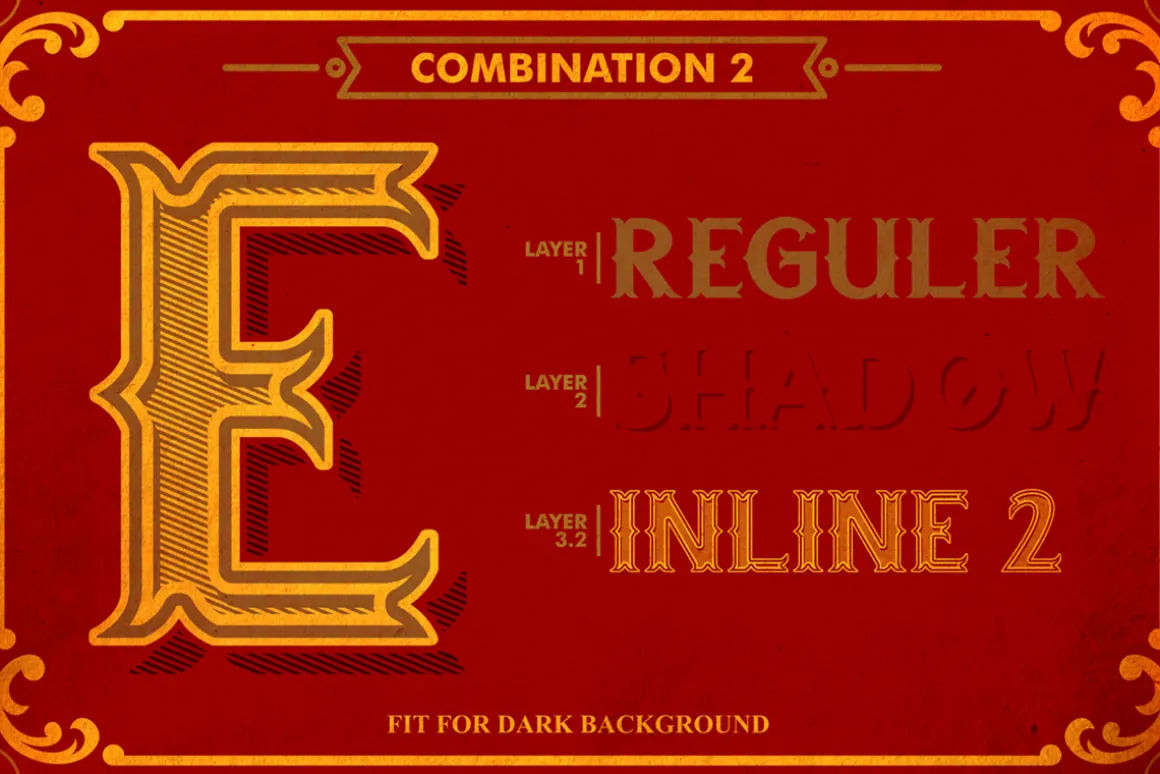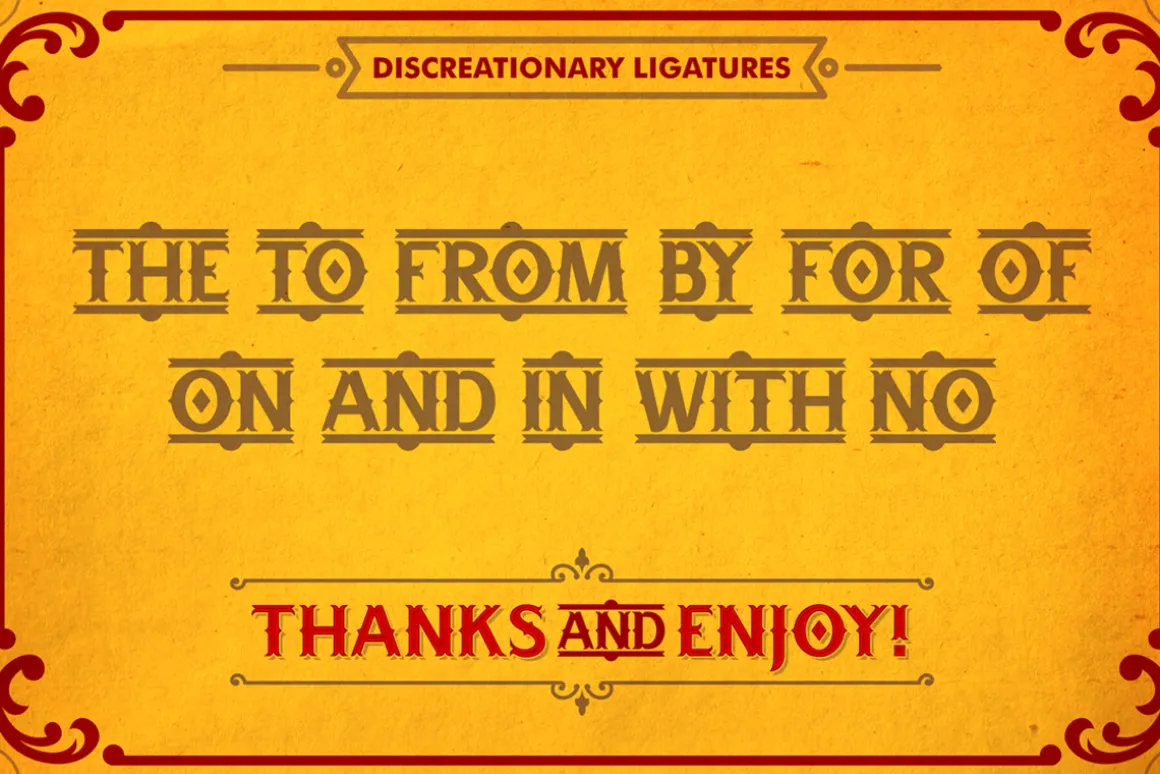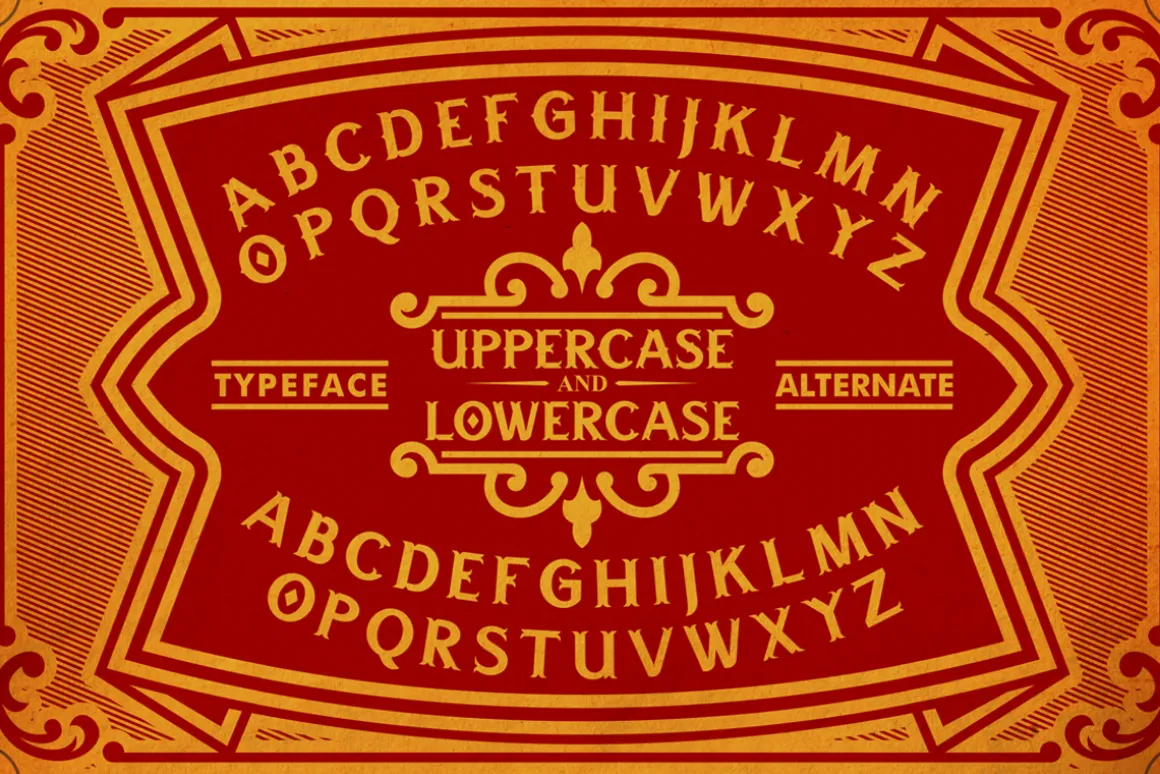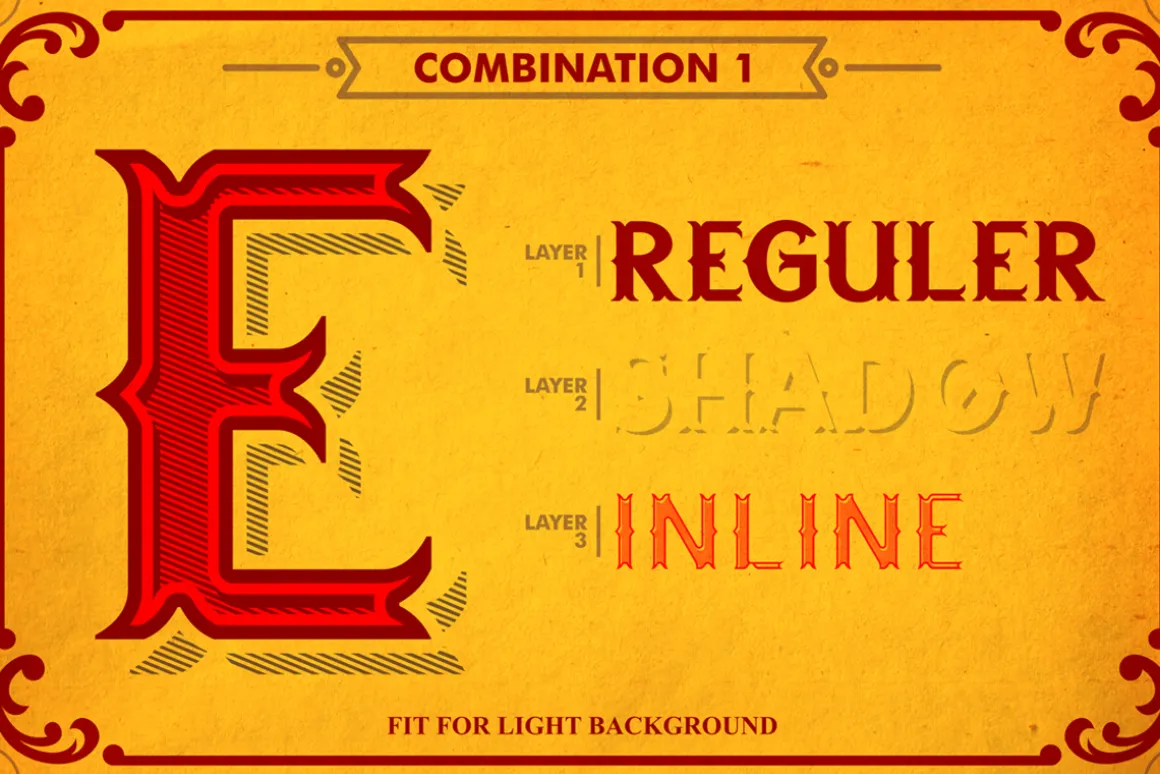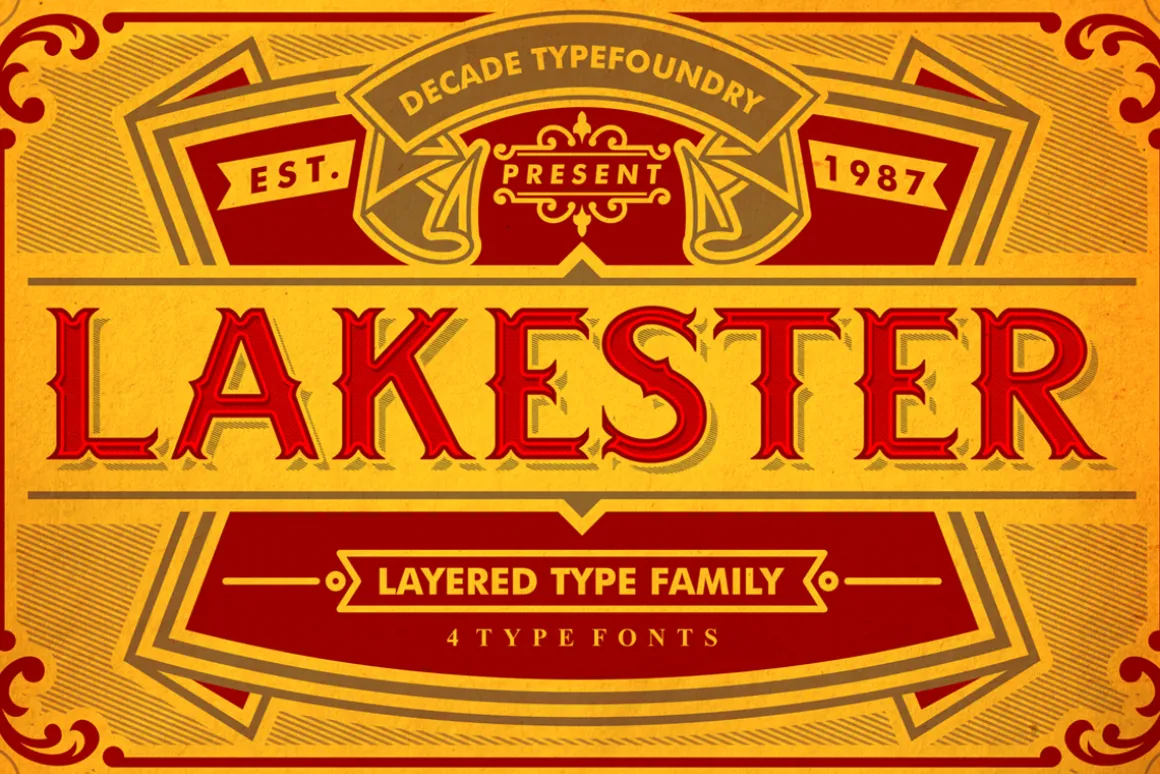
Lakester is a layered type family. Comes with 4 font system that can be layered to create different effect (regular,shadow,inline,inline 2) .Inspired by vintage american west poster, loaded with 300 glyphs. This family best for logotype, gig poster, letterhead, dropcap, titles, and any artworks.